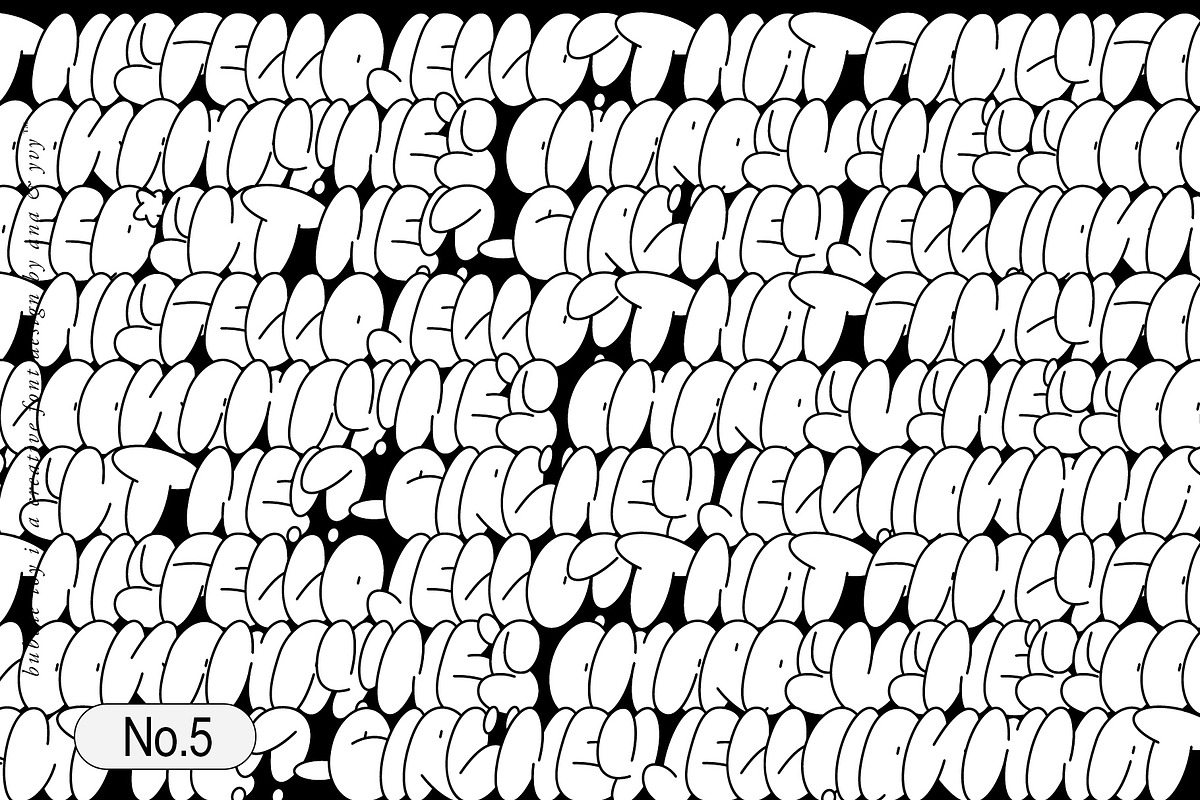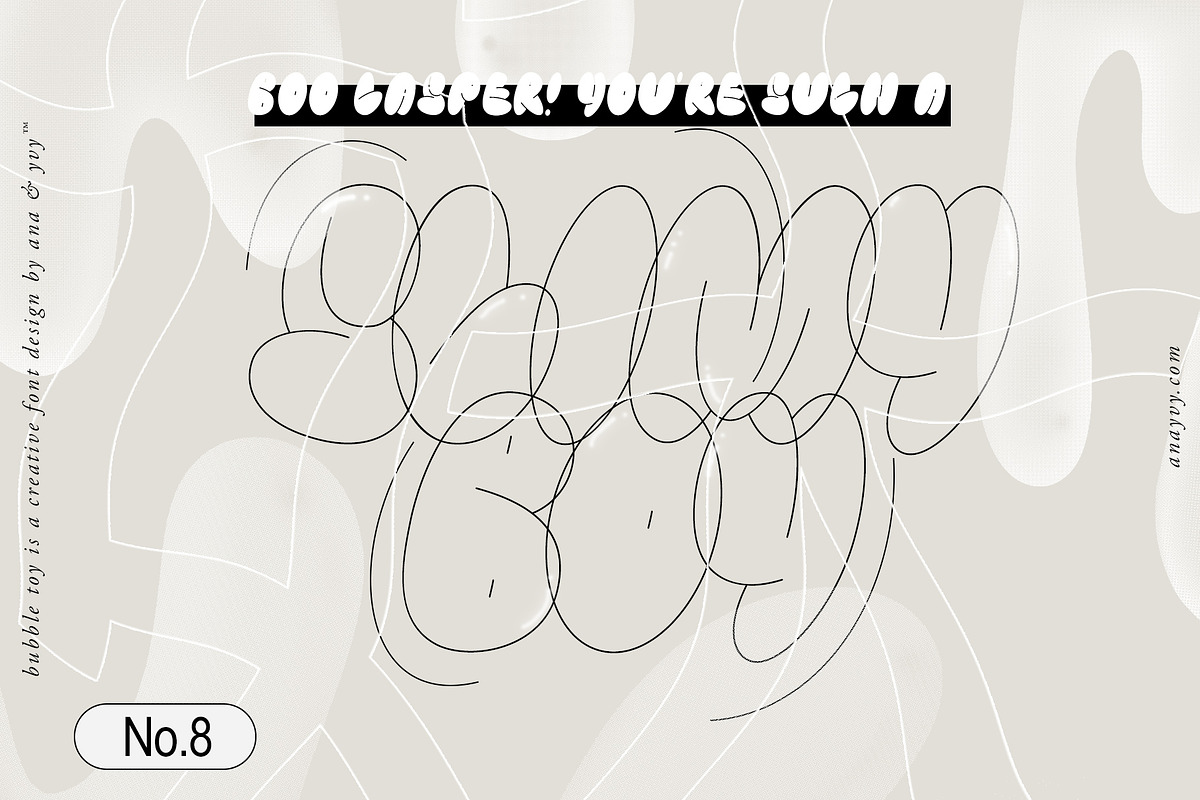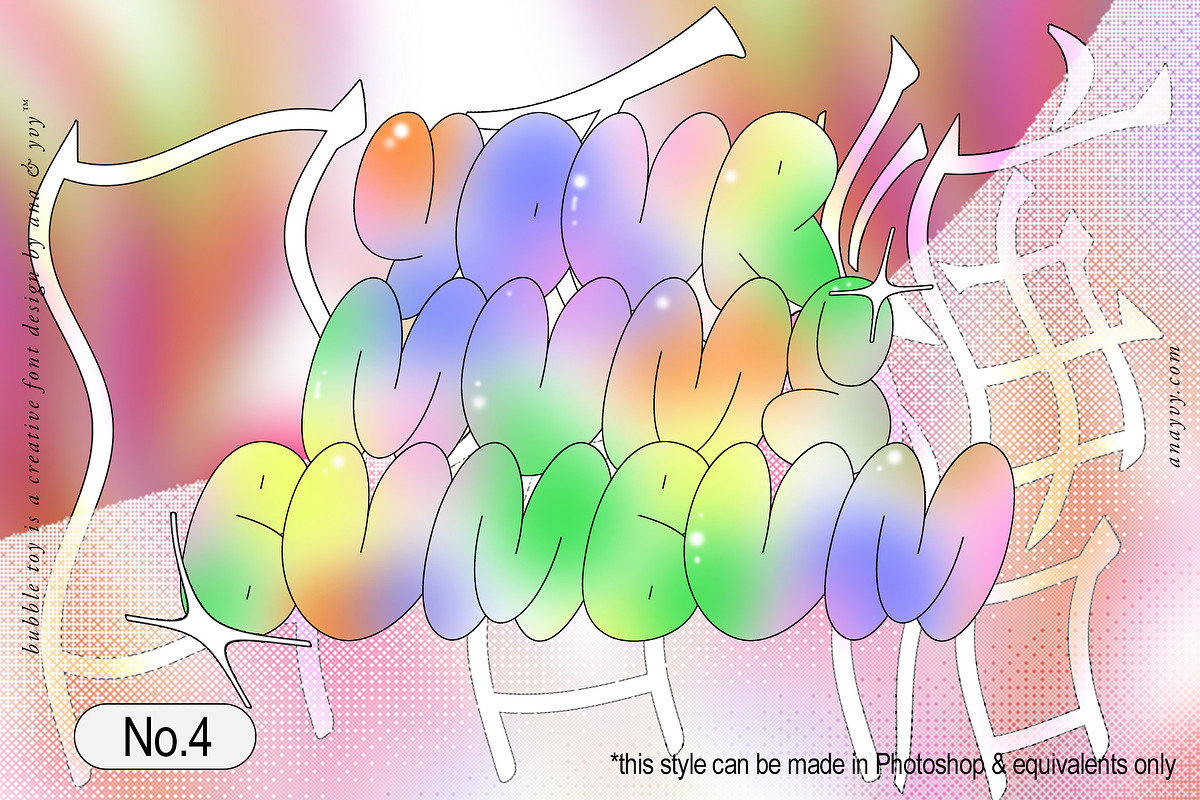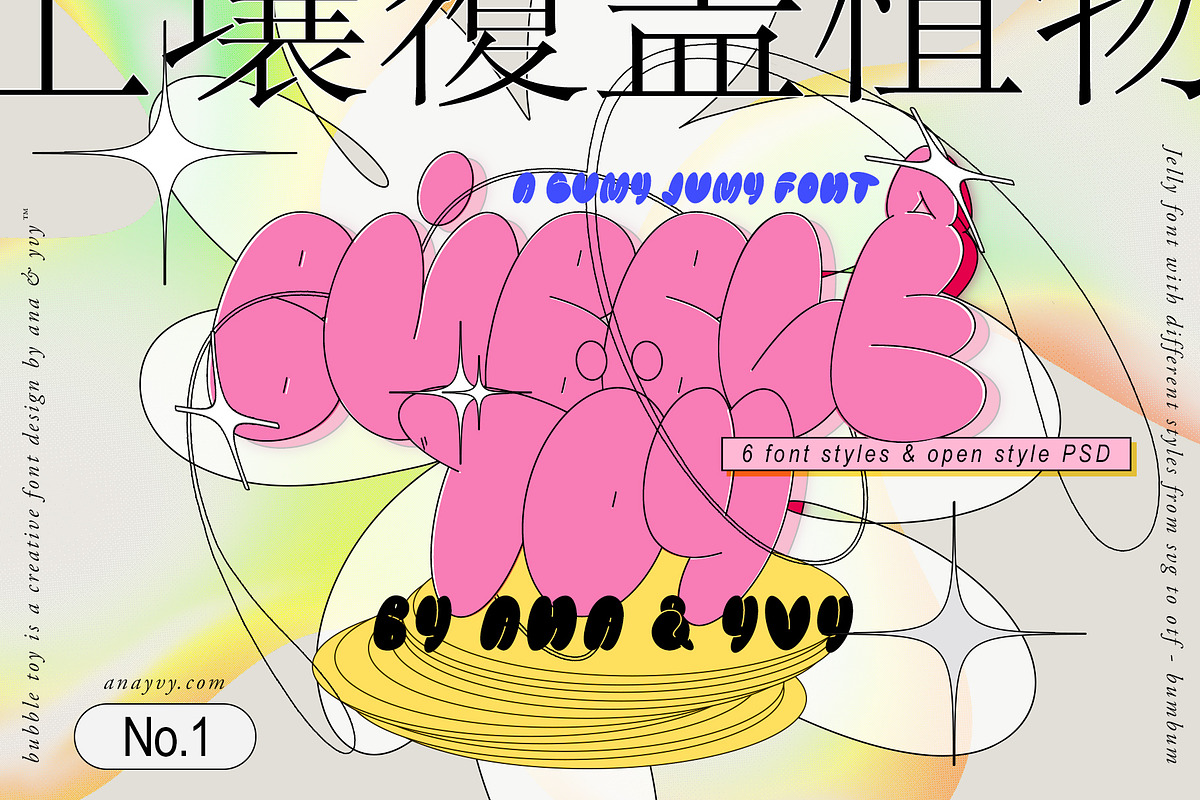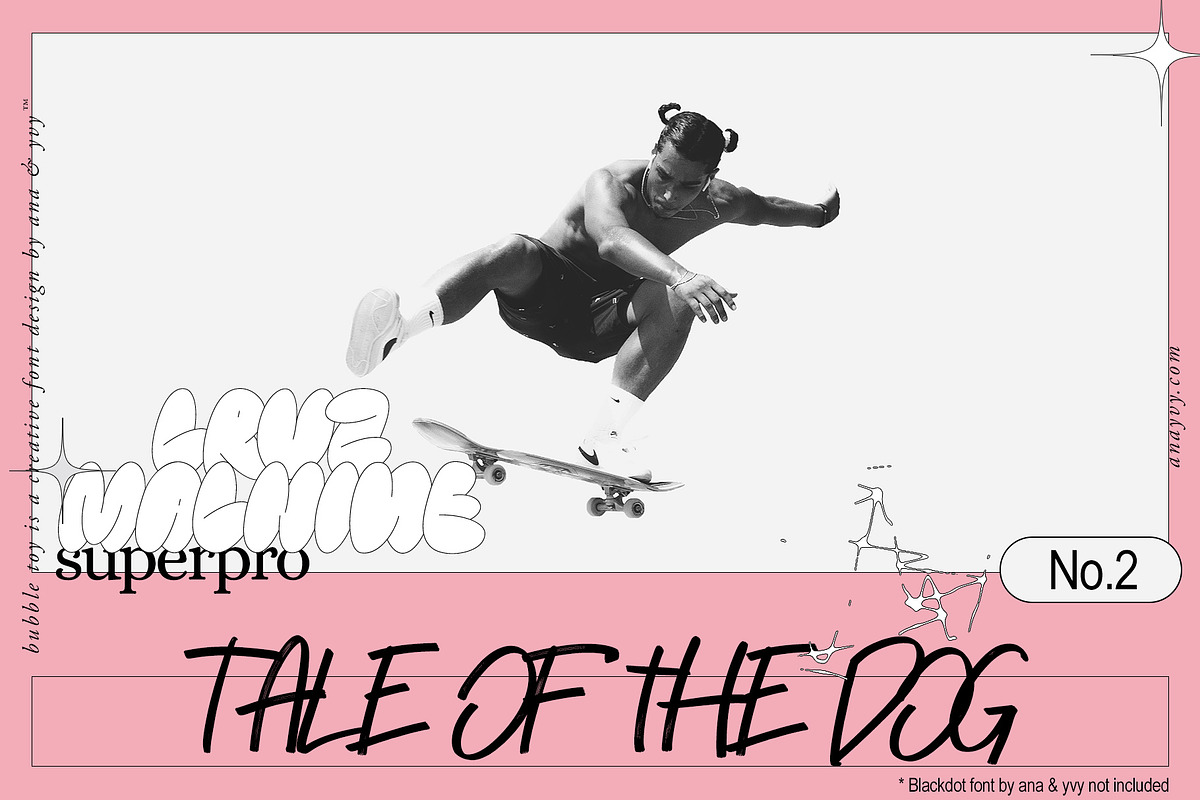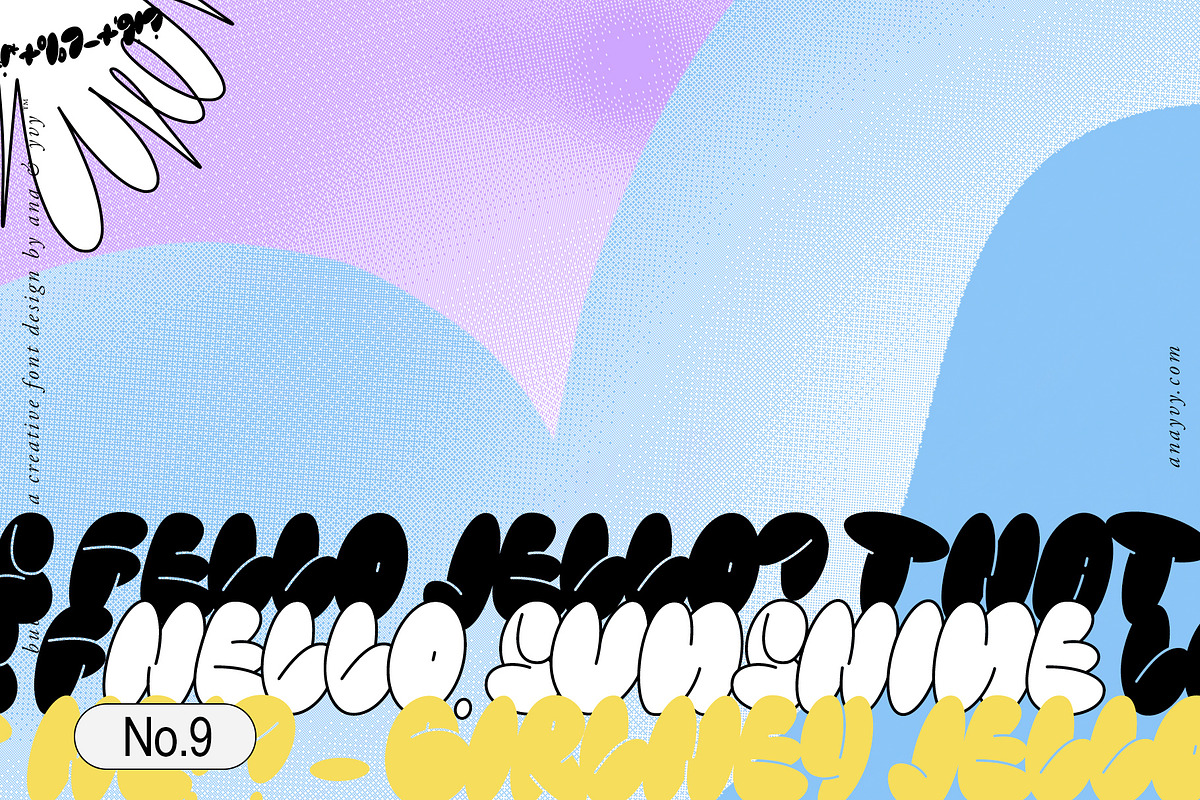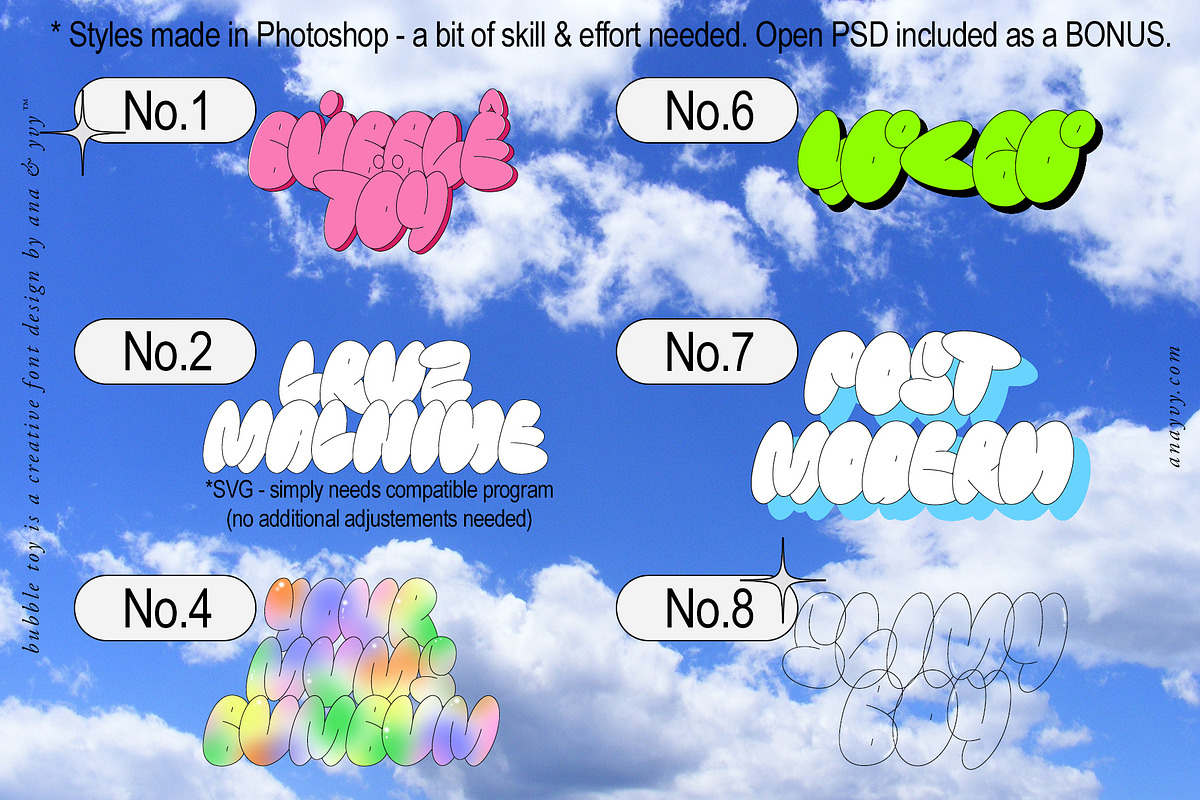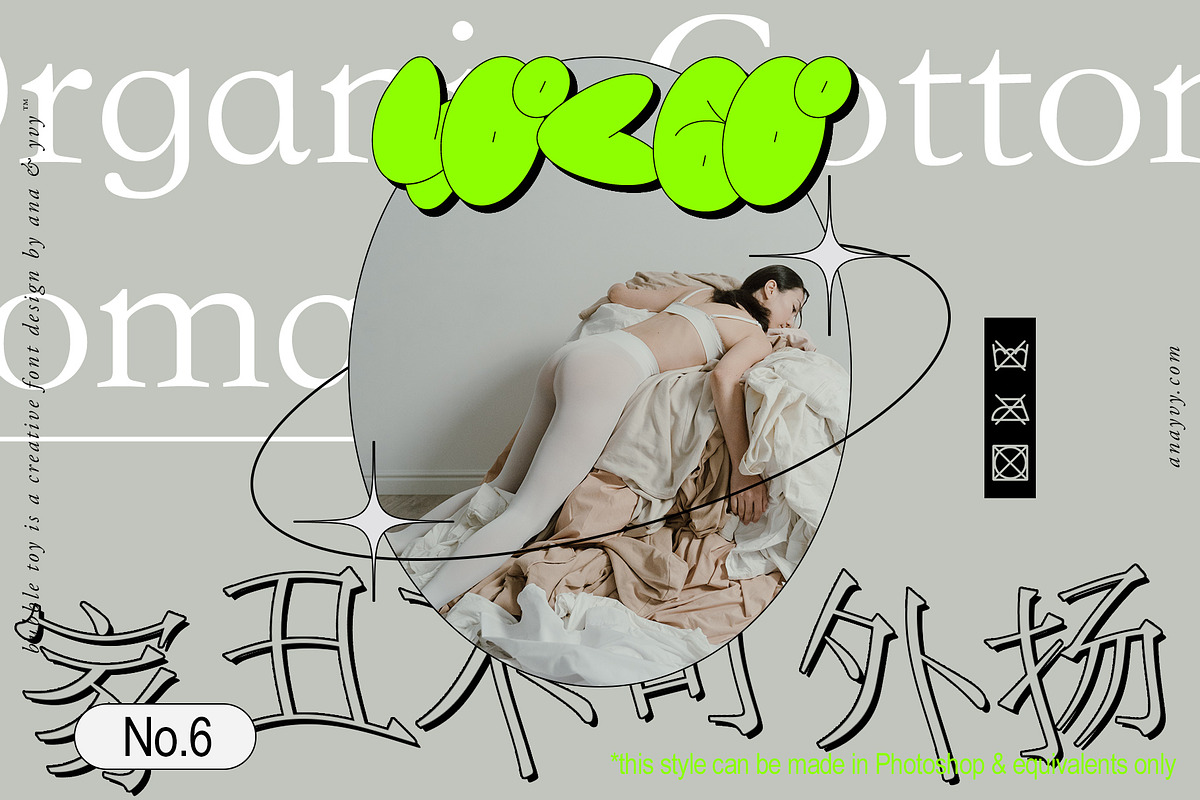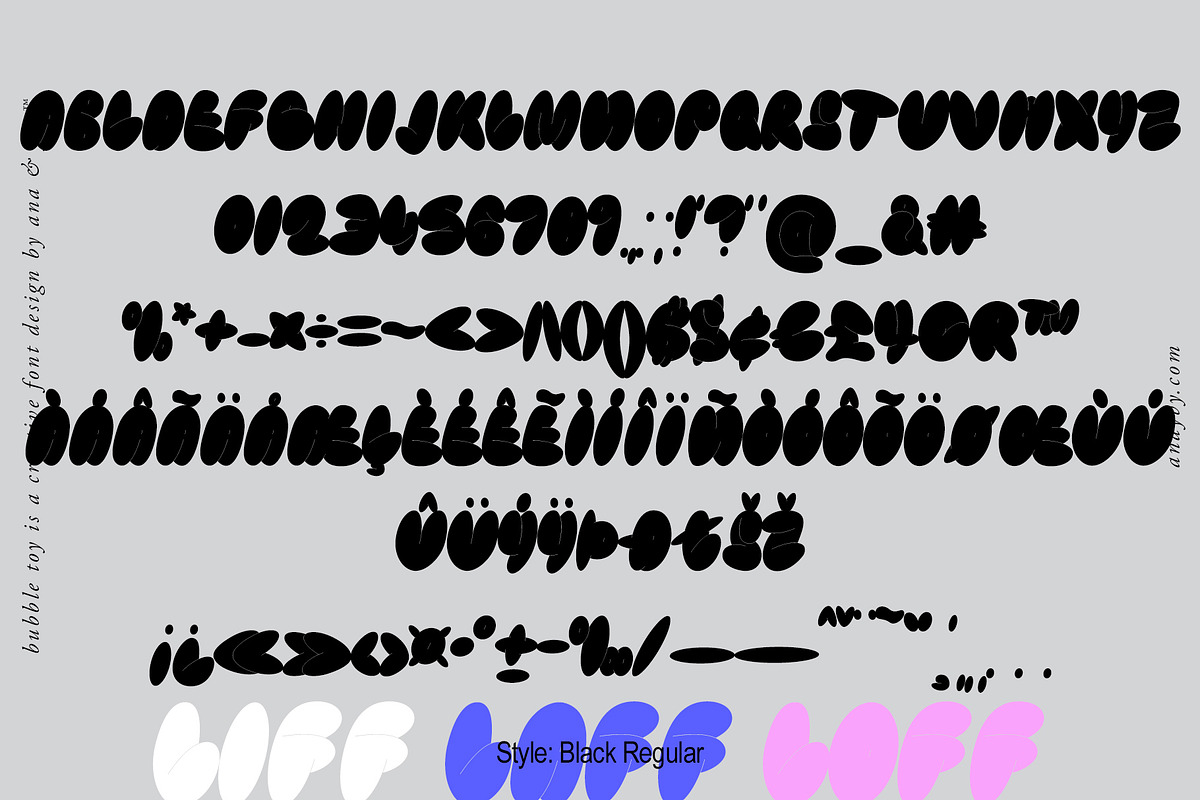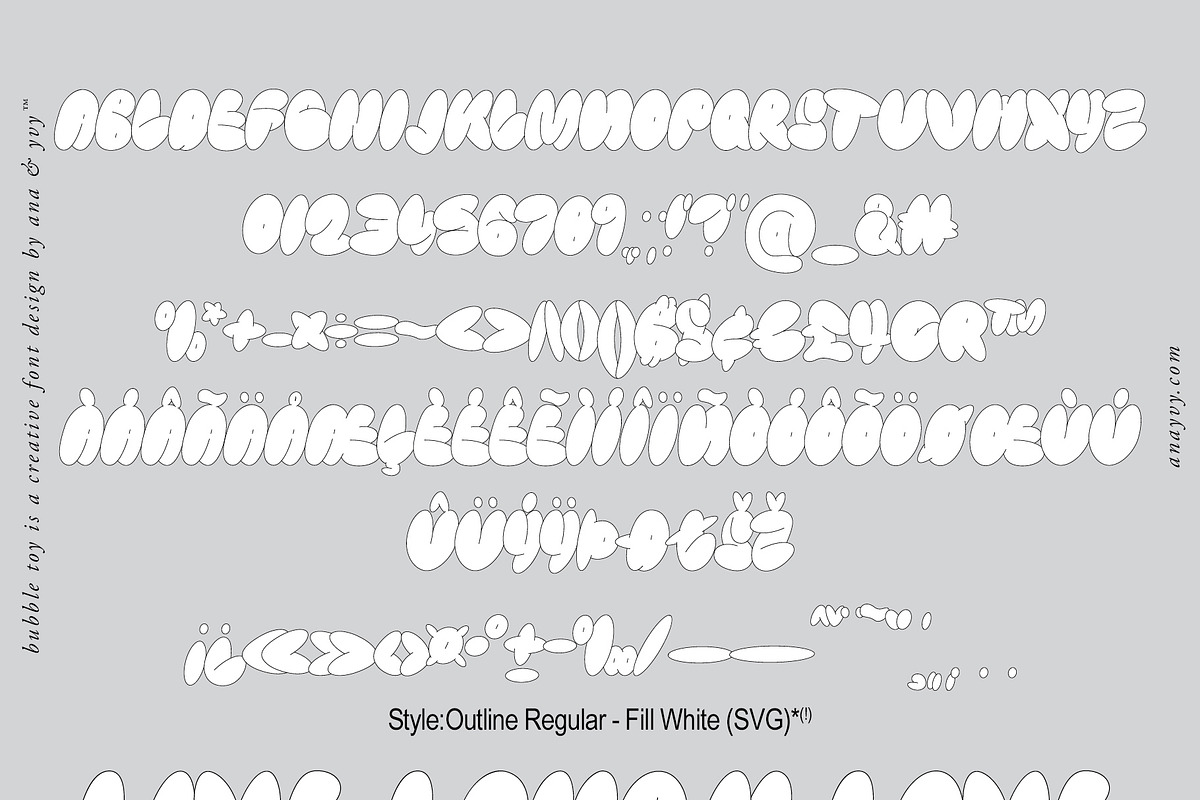
Bubble Toy | 2000s Retro Graffiti
Bubble Toy - a 90s & 2000 inspired graffiti font family with 6 styles. Handmade fun bubble styles in vector quality.
- plain with outline cutout - black regular
- plain with outline cutout - black bold
- outline only - regular
- outline only - bold
- SVG black outline white filling - regular
- SVG black outline white filling - bold